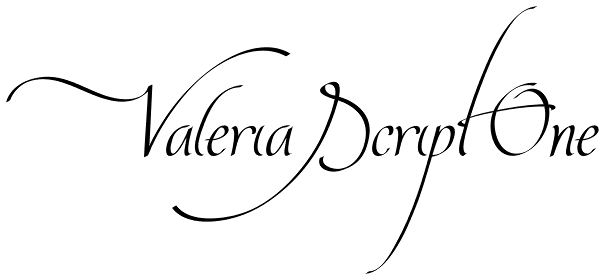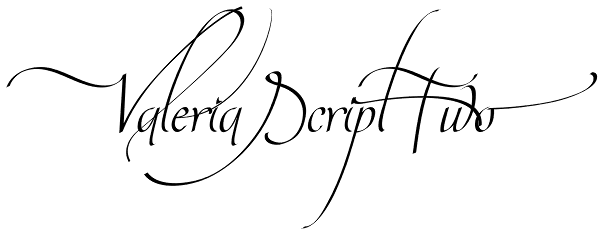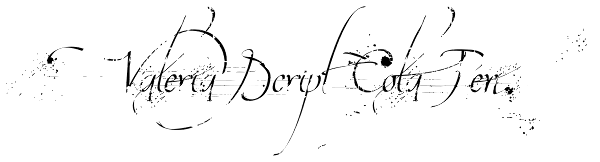
Valeria Script
A mix of elegance, sensuality, legibility. This Open Type, called Valeria Script, tries to be sentimental. Very useful to those who love flowing script, based on calligraphers, with a personal touch of the designer Maximiliano Sproviero. This ornate...
Valeria Script One
Valeria Script Two
Valeria Script Cola Pen